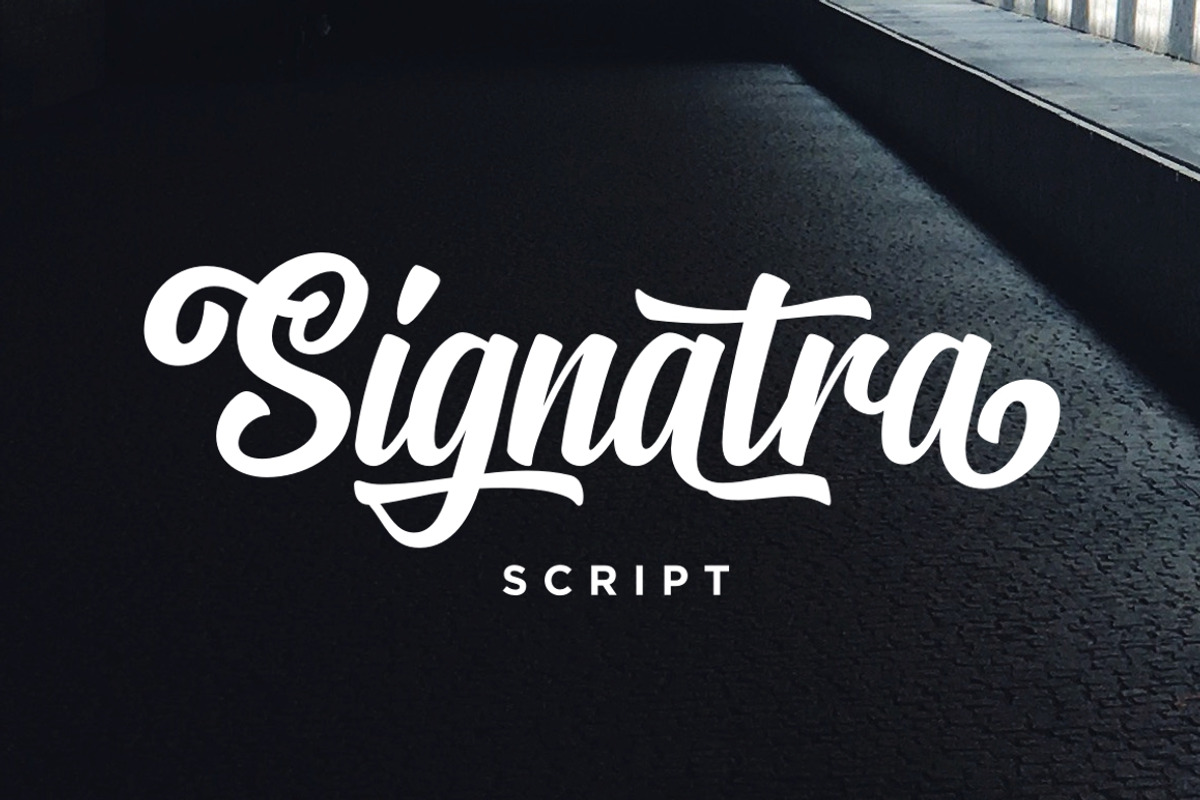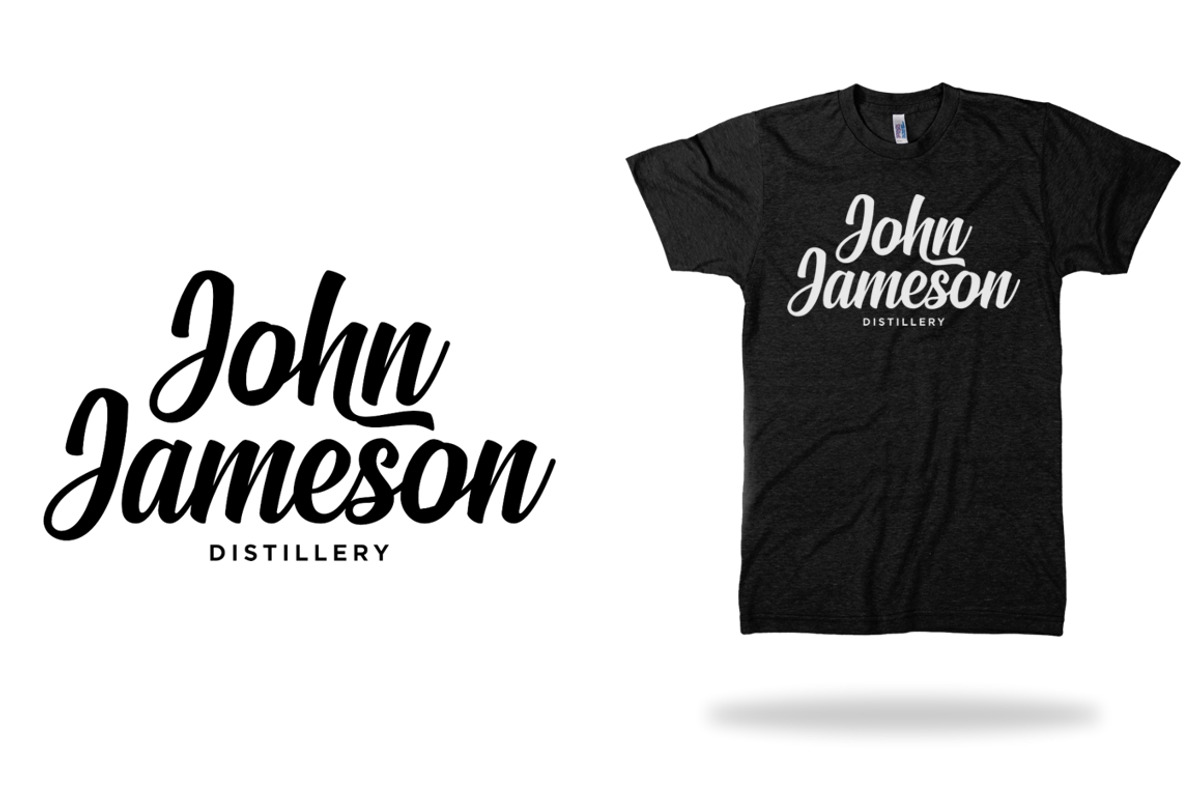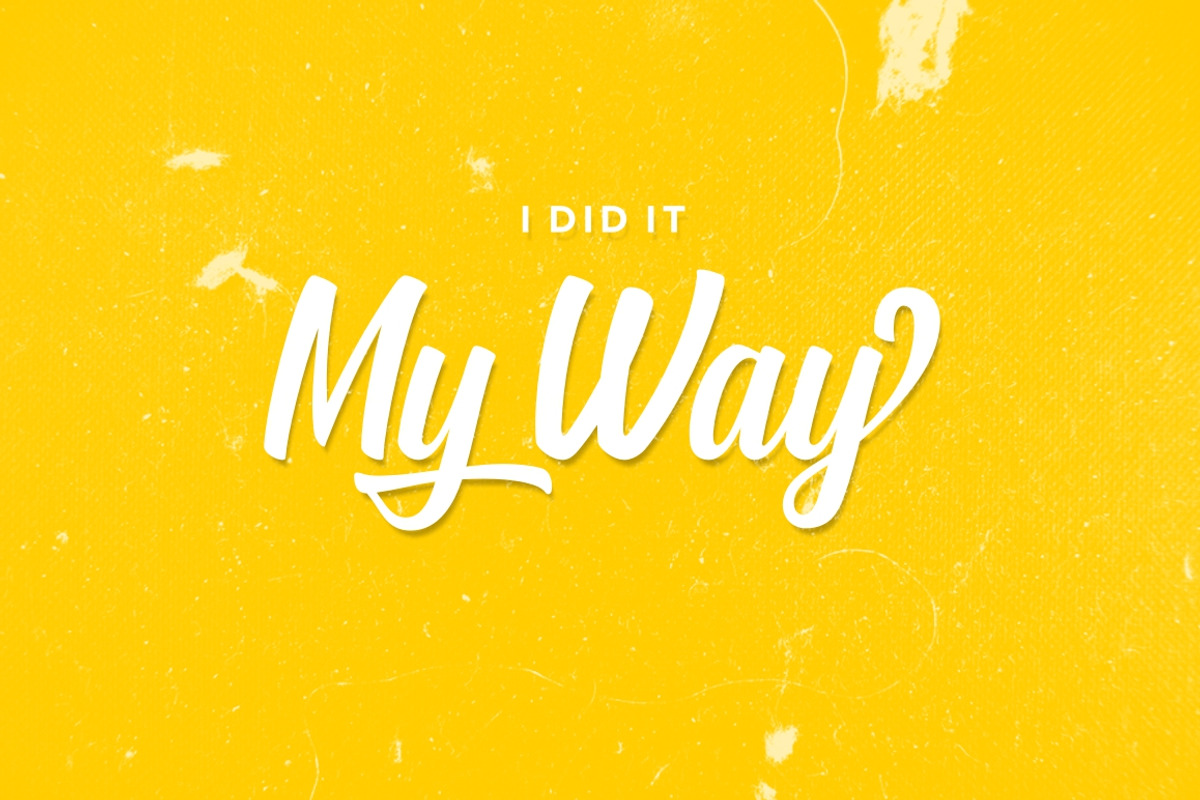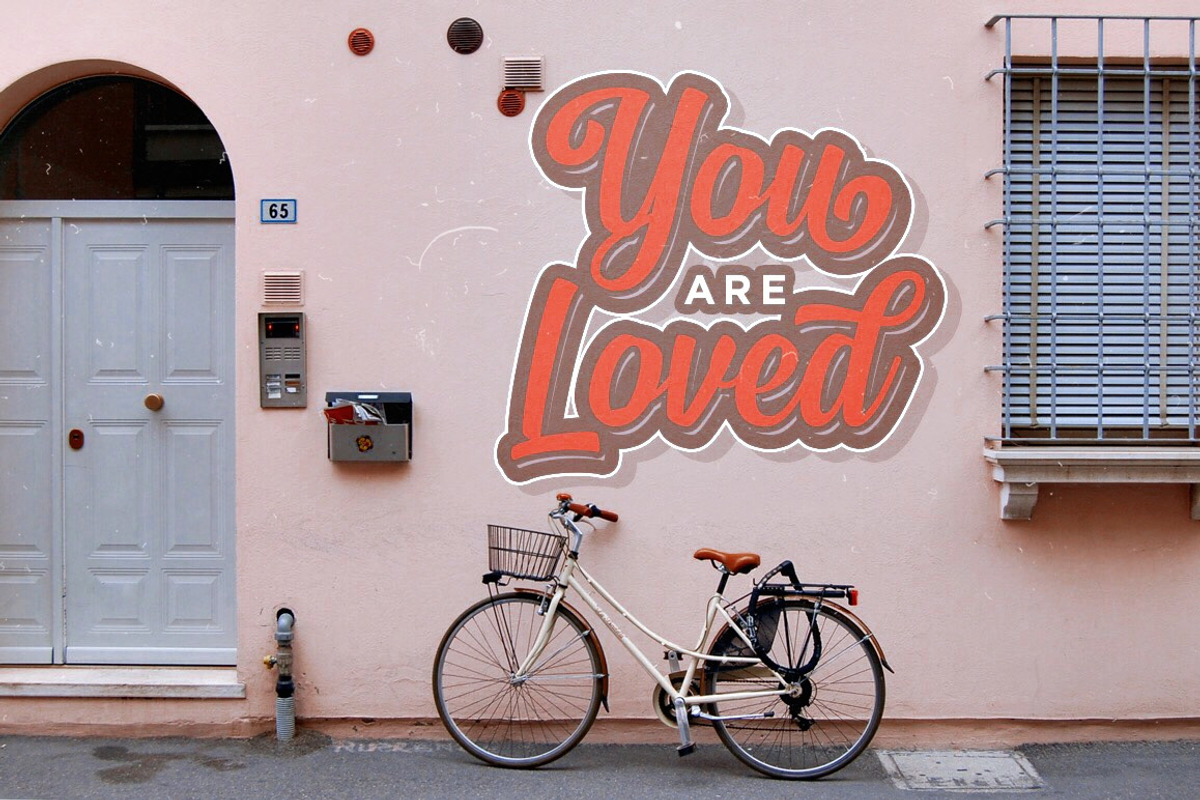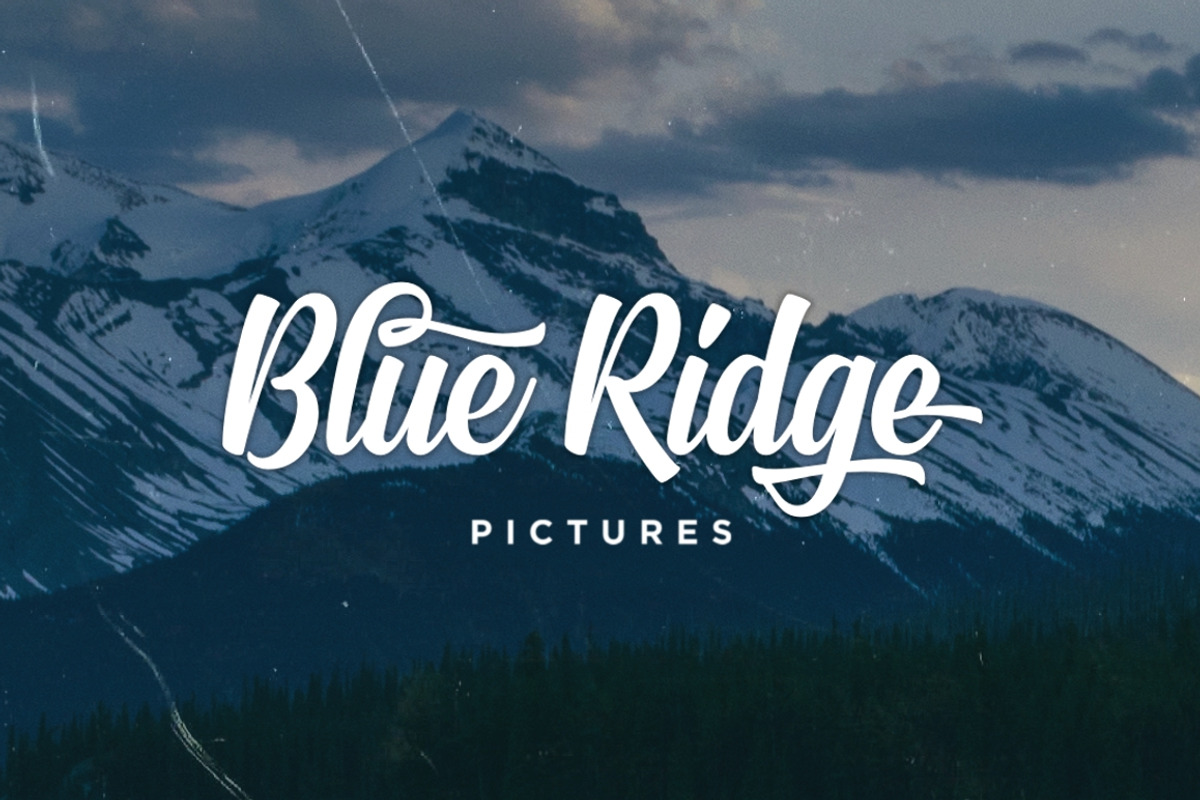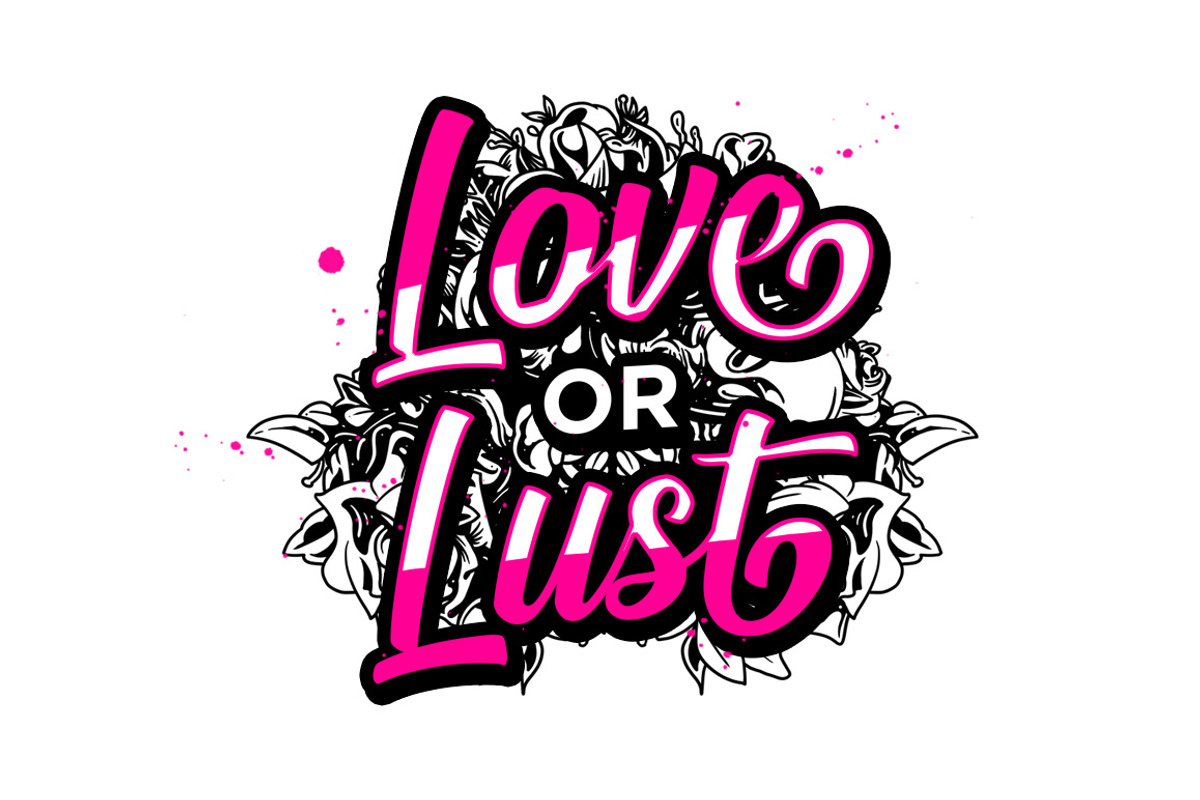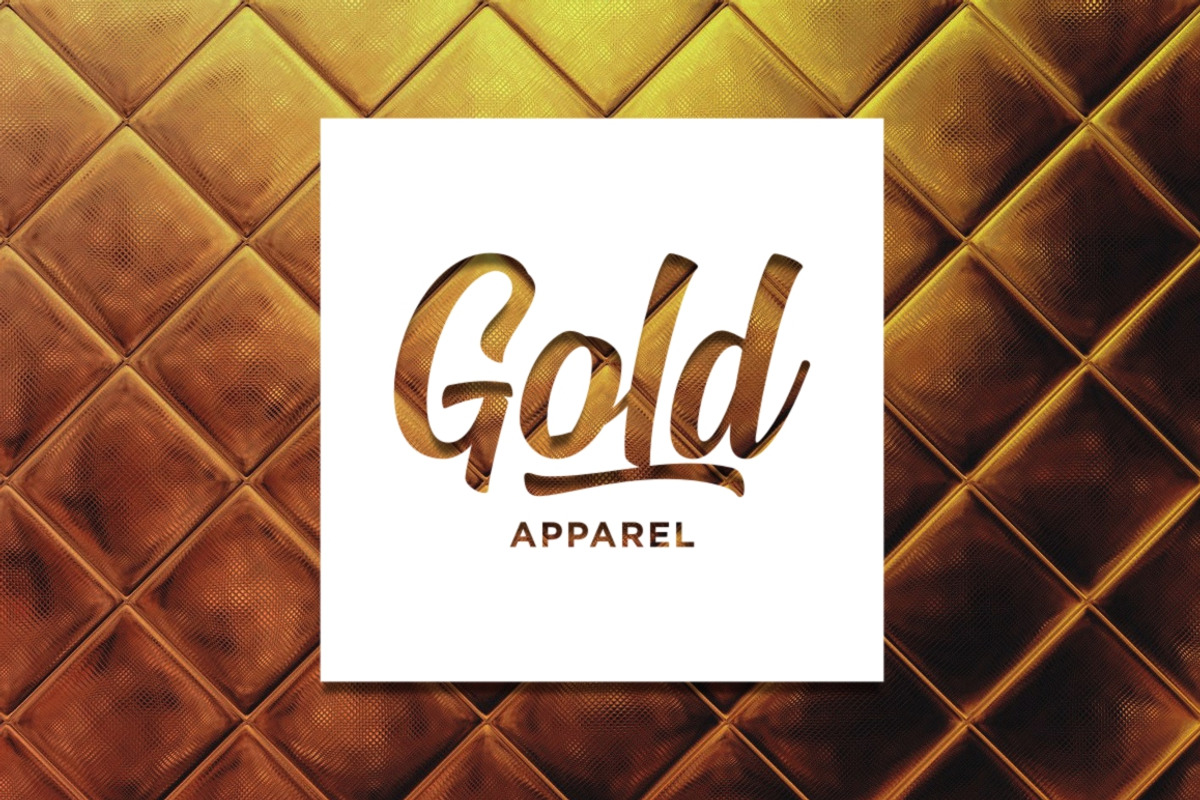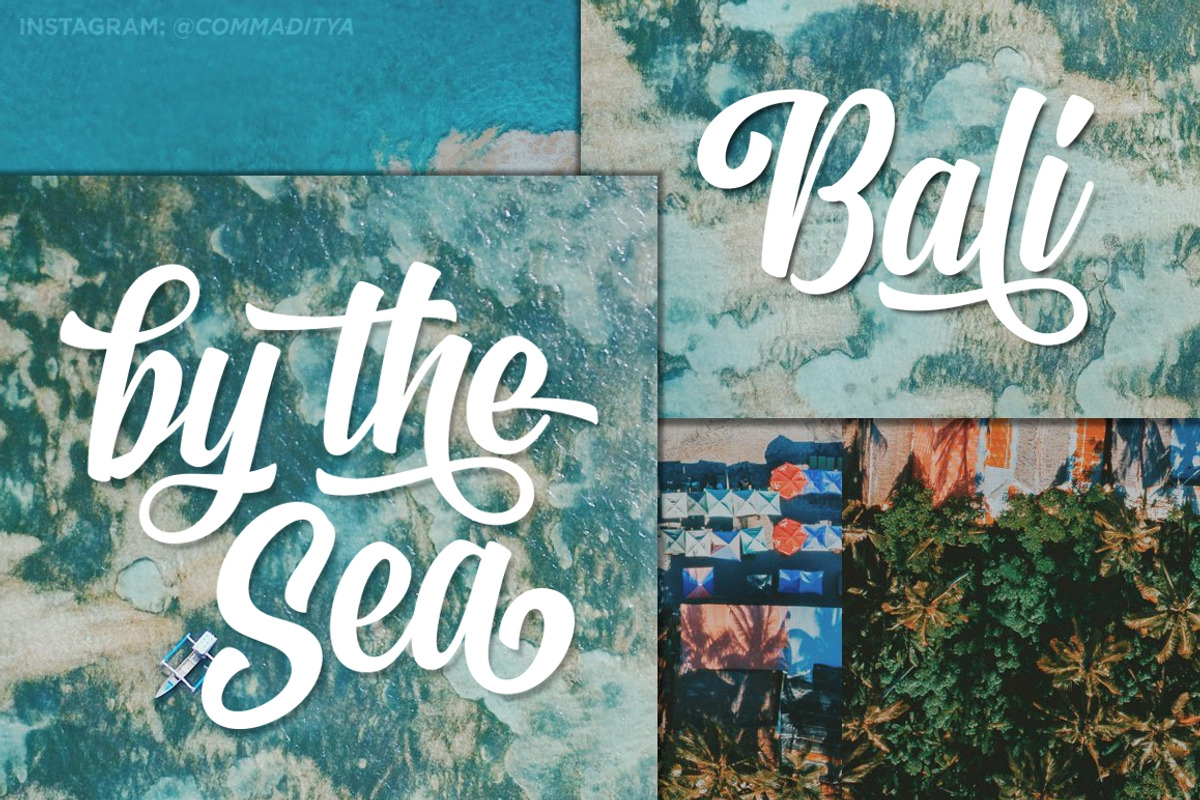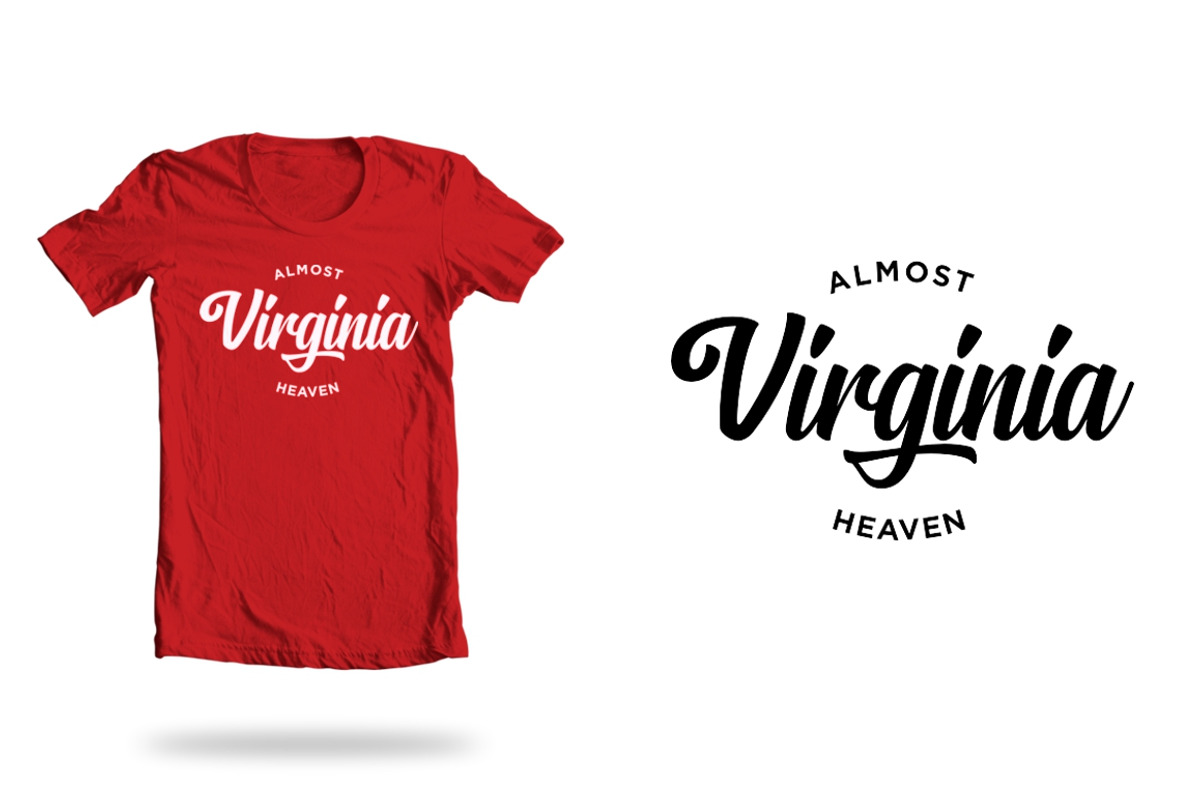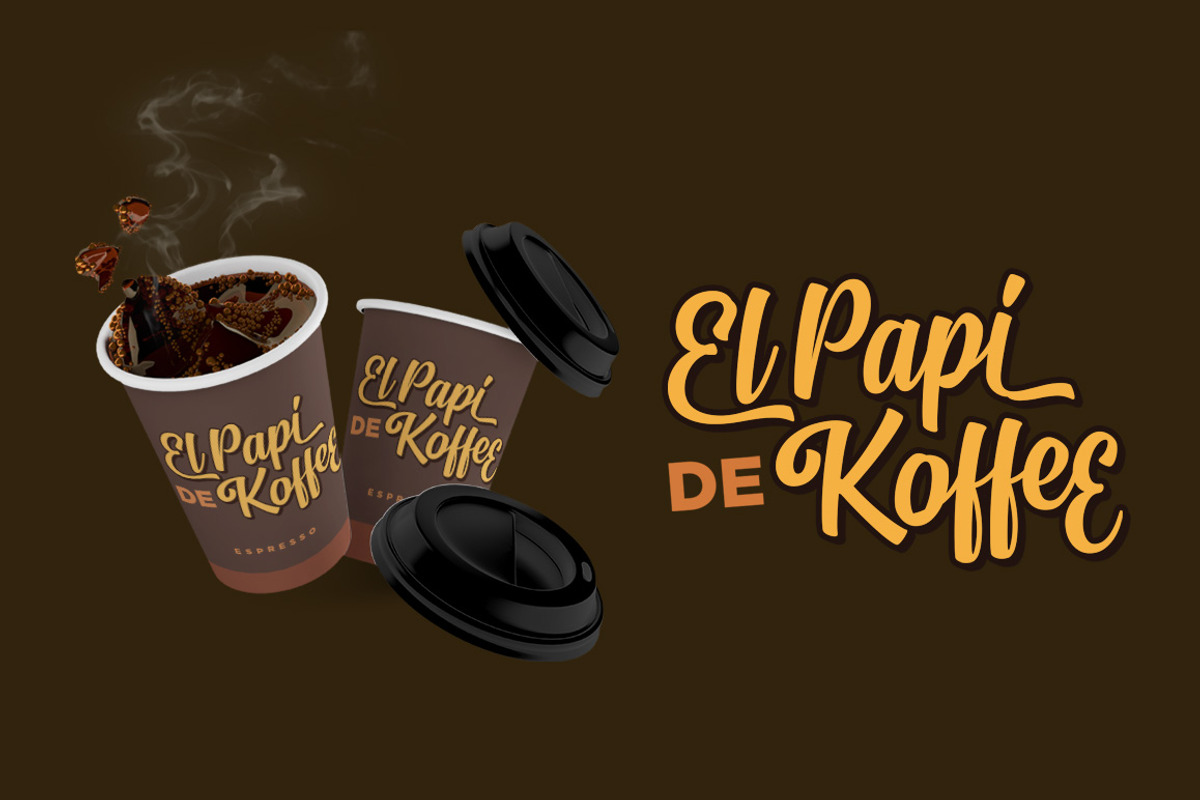
Signatra Script
Introducing our new font; Signatra. A clean and playful yet trendy typeface. Mouse-crafted with high attention to the details; Signatra offers you a natural hand-lettering/signpainting experience. Suits best for logotype, poster/t-shirt designs, food/beverage labels, greeting cards, wedding invitations, and mandy moore.
Consists of +400 glyphs (includes some OpenType Features like ligatures, special-alternate characters, swashes, initial-terminal forms, multingual characters, etc), Signatra is a great addition for your designing arsenal. PUA encoded, so you can get the access to special characters thru Character Maps and Font Book, no special software needed. For Adobe user, you can use this guide to access them too: http://adobe.ly/1m1fn4Y